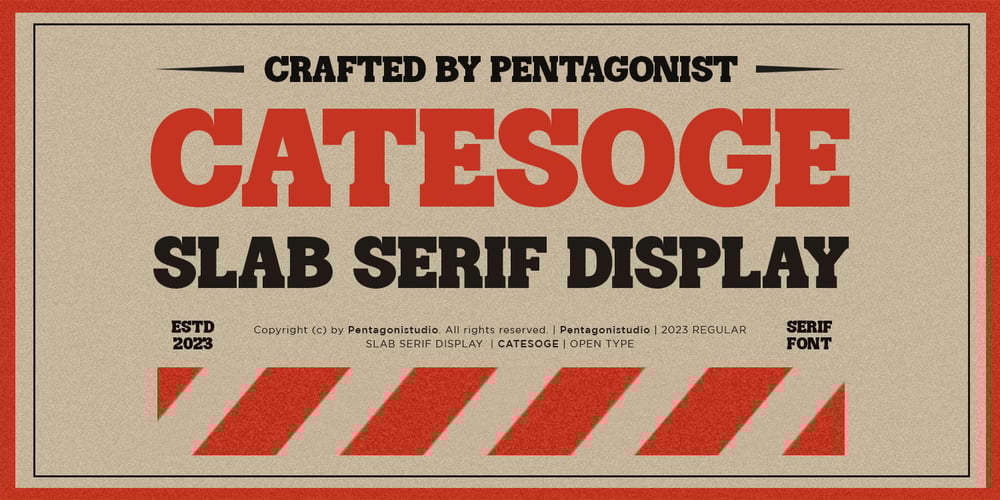
Catesoge PS Font Family was designed by Burhan Adiatma and published by pentagonistudio. Catesoge PS contains 1 styles and family package options. Catesoge Is A Bold Slab Serif Typeface Inspired By Retro and Vintage Style.SOFTWARE REQUIREMENTS :Fonts and alternate : No special software required they may be used in any basic program /website apps that allows standard fonts That’s it folks! You can go ahead and get cracking :)Follow My Shop For Upcoming Updates Including Additional Glyphs And Language Support. And Please Message Me If You Want Your Language Included or If There Are Any Features or Glyph Requests, Feel Free to Send me A Message. Have a Good Day !